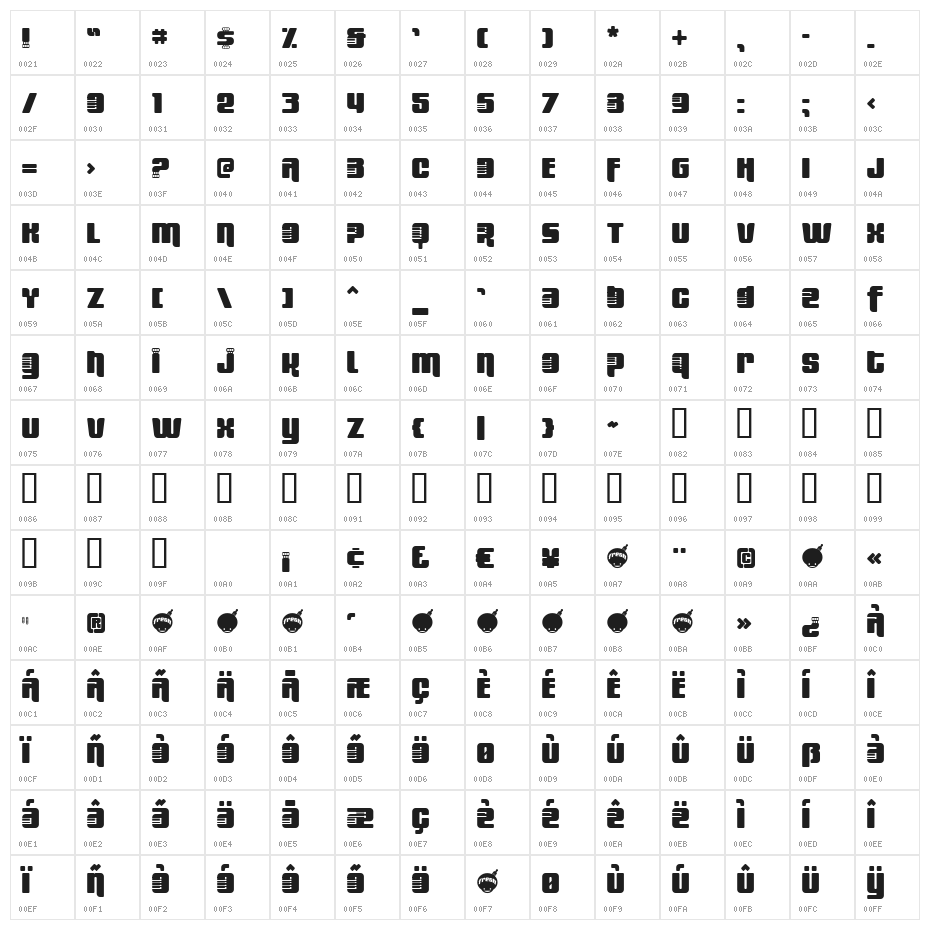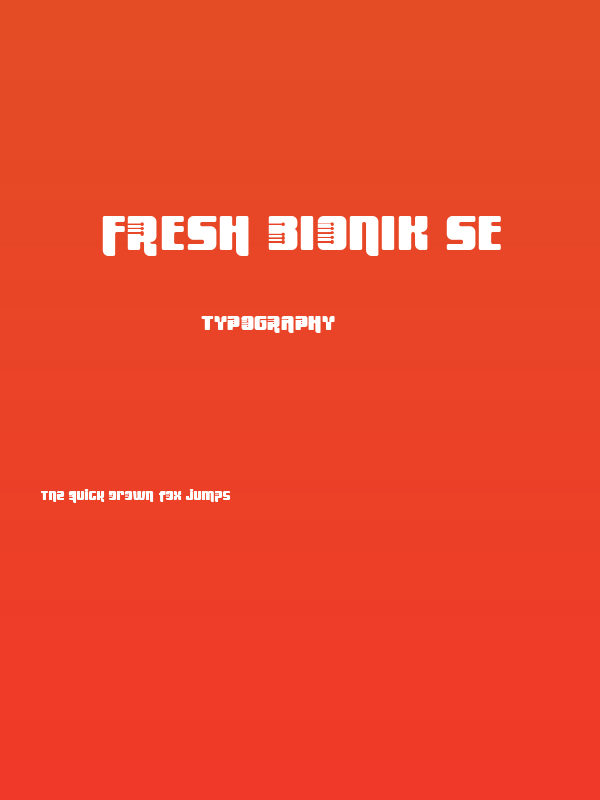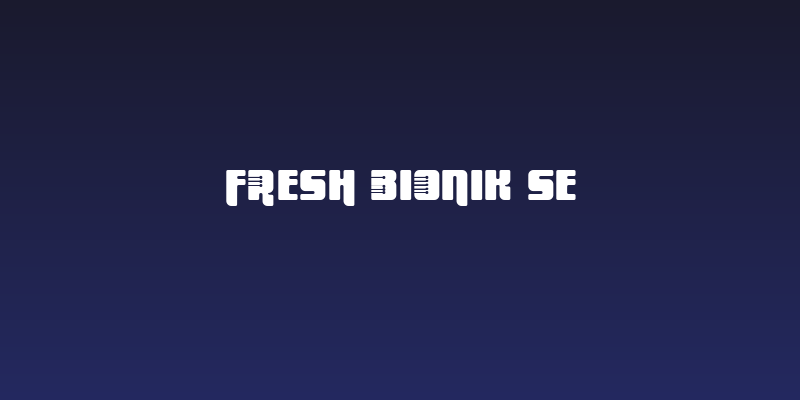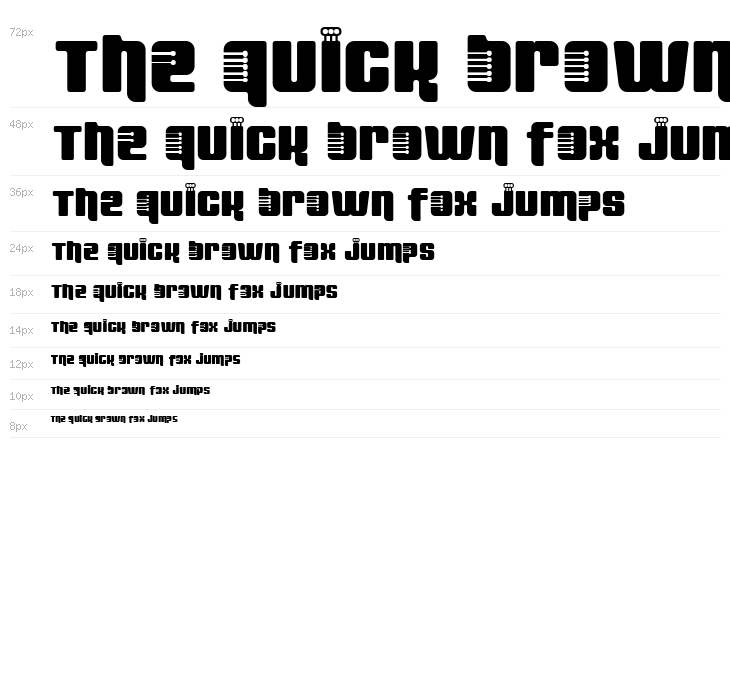
Fresh Bionik SE Font
Fresh Bionik SE Description
This font features a bold and futuristic design with a unique, blocky structure. The characters are constructed with thick, uniform strokes that give a strong and impactful appearance. Notably, some letters incorporate horizontal lines or bars, adding a distinctive, mechanical feel. The overall style is modern and industrial, making it suitable for projects that require a bold statement. The uniformity in stroke width contributes to a cohesive look, while the geometric shapes provide a sense of stability and strength. This font is ideal for attention-grabbing headlines or branding that aims to convey innovation and strength.
| Proposed Projects | Ideal for technology branding, sci-fi posters, video game titles, and industrial-themed designs. |